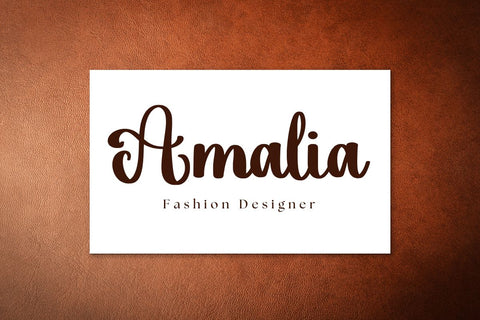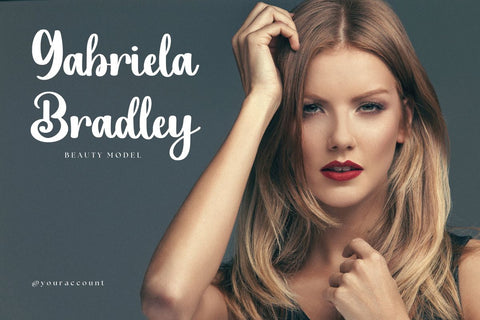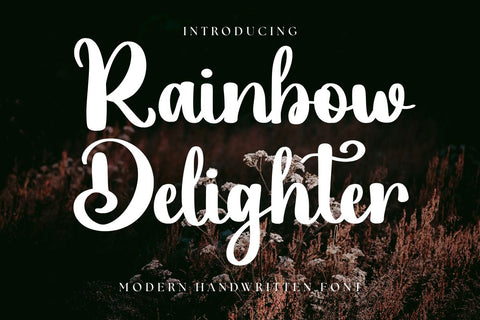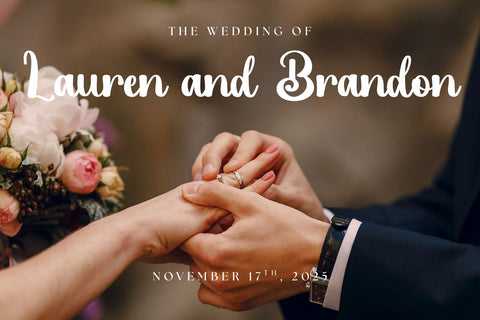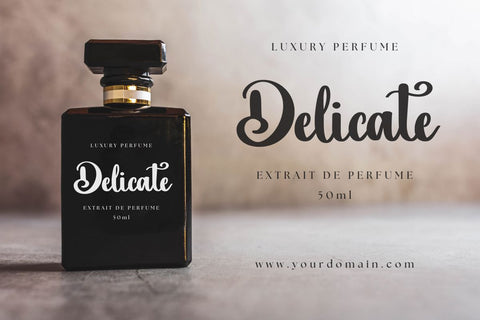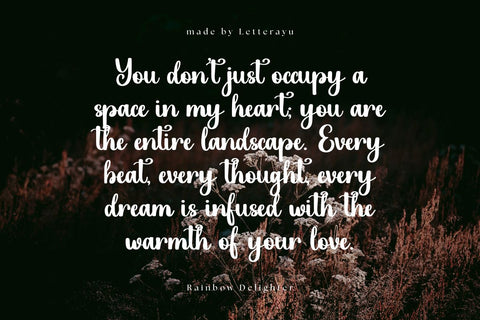
Rainbow Delighter - Handwritten Font
Rainbow Delighter is a modern handwritten script font with bold and playful strokes. It brings a joyful and elegant touch to your designs, making it perfect for Cricut and Silhouette projects.
This font is ideal for t-shirts, mugs, greeting cards, invitations, quotes, wall art, and DIY crafts. Its smooth curves and stylish swashes make every design look delightful and unique.
PUA encoded characters for easy access to swashes and alternates